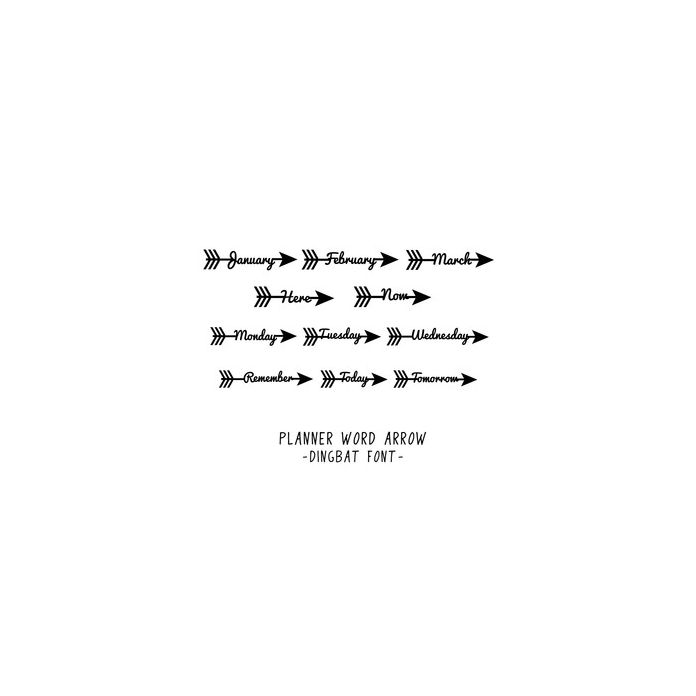
Planner Word Arrow Dingbat Font. Includes 26 word arrows with months, days of the week and planner words, great for use in journals and planners. For more design ideas, coordinating designs & products and inspiration, please visit my blog http://www.sarahhurleyblog.com